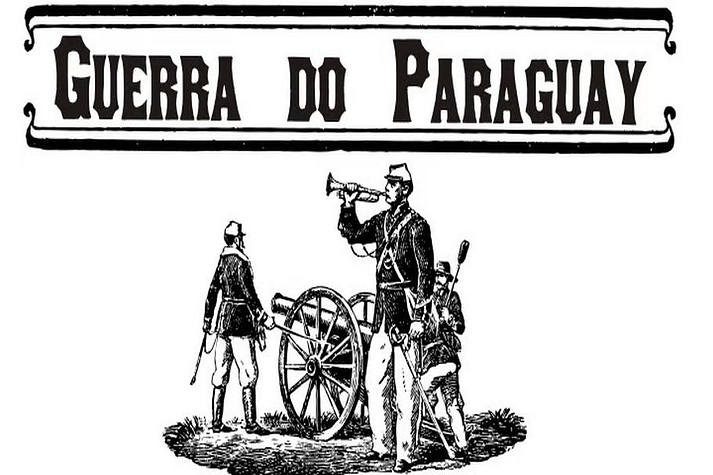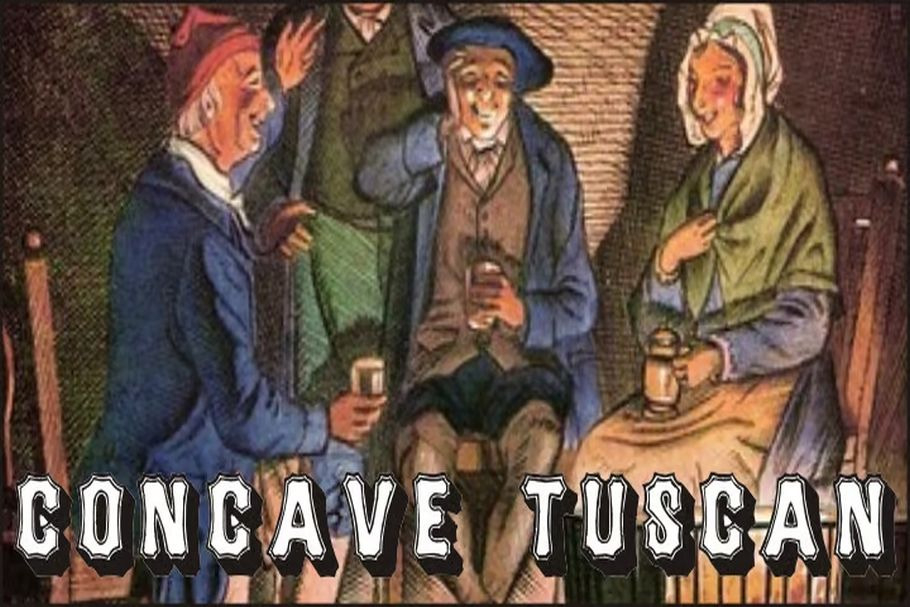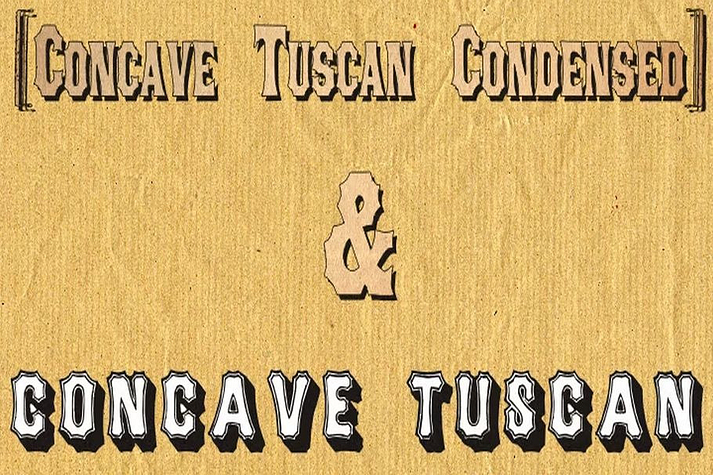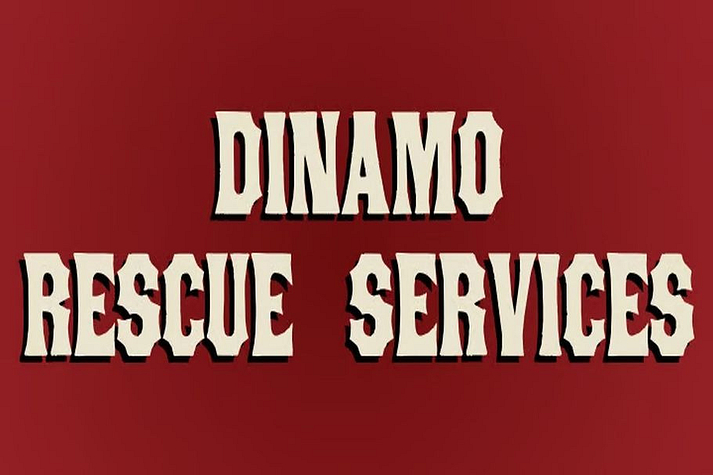
Concave Tuscan
Concave Tuscan is a wood type font family. This typeface has two styles and was published by Intellecta Design.
Two fonts in the pack… a classic digitization of the wood types era heritage